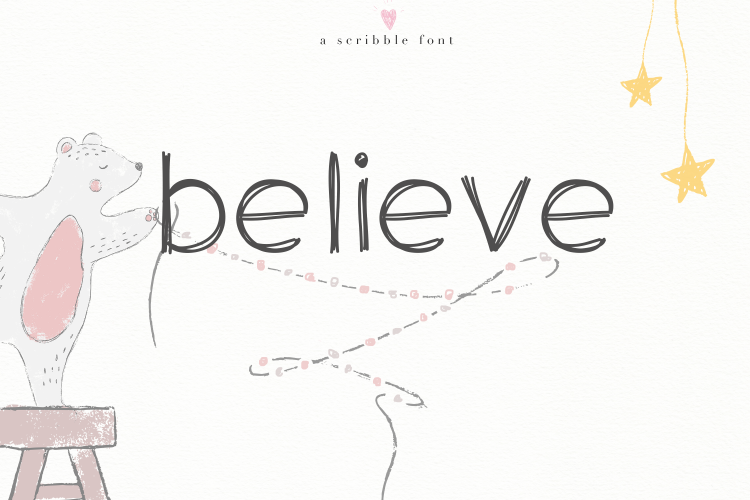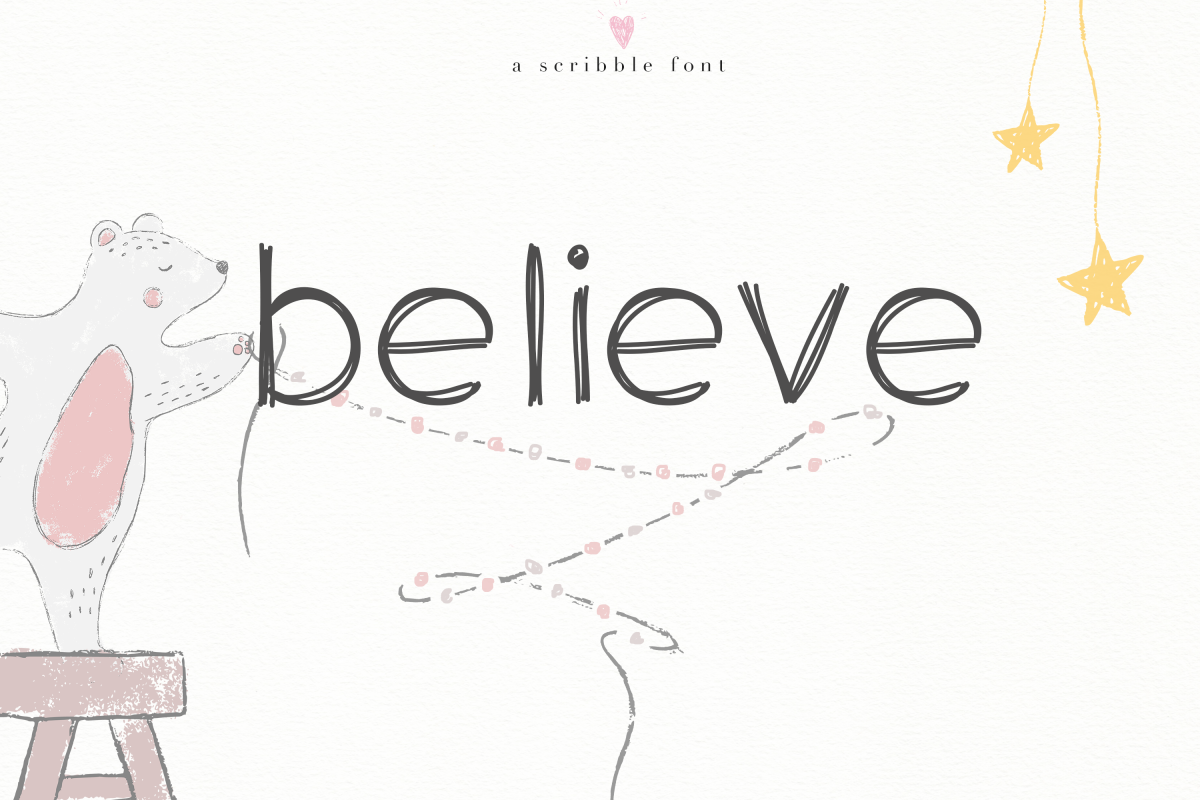
Believe - A Handwritten Scribble Font
Believe is a handwritten scribble font.
This font is perfect for quotes, headings, blogs, logos, invitations and more!
This font does include accent characters.